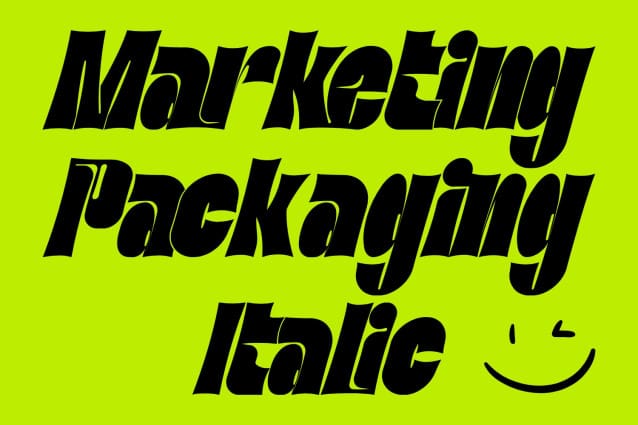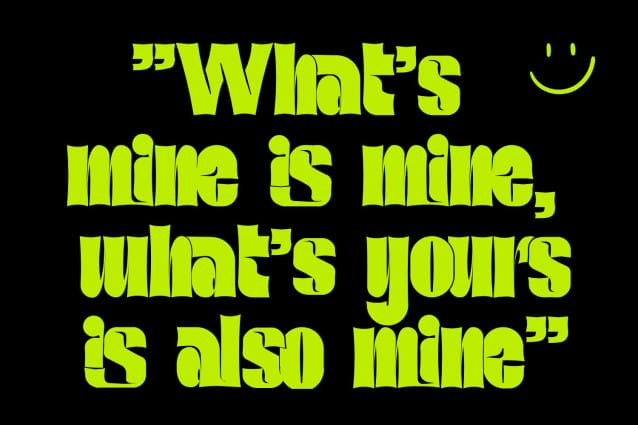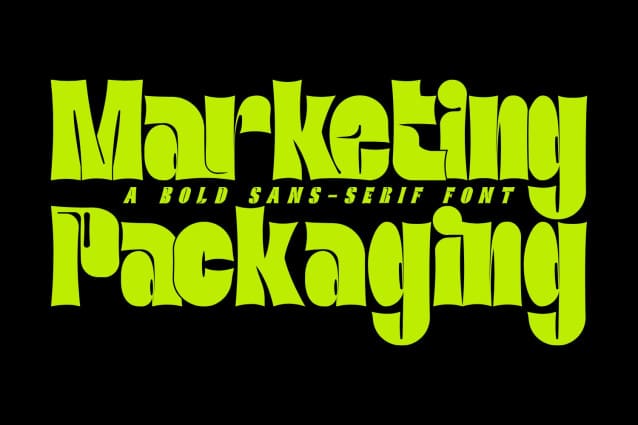
Marketing Packaging Font
Marketing Packaging Font is a modern high-contrast display font with bright positive character. It’s quirky, groovy, and funky— definitely charming. Bold and thick, a fun typeface to play with! It’s a bold display typeface that is both fun and powerful, amusing yet impactful. It is visually striking and unique; unforgettable and un-ignorable. Excellent for brand identities, logos, packaging, posters and the like.
Marketing Packaging was built with OpenType features and includes 100 ligatures, alternate, numbers, punctuation, and it also supports other languages.